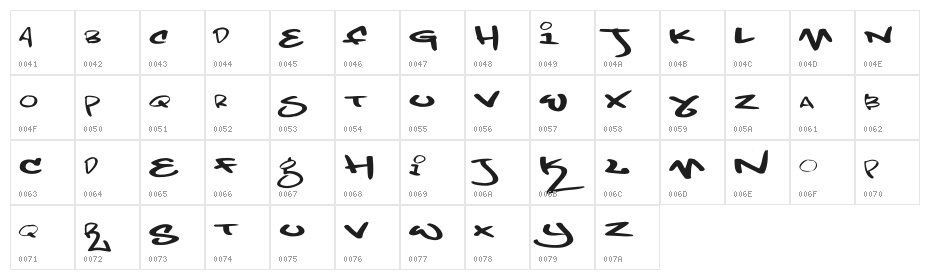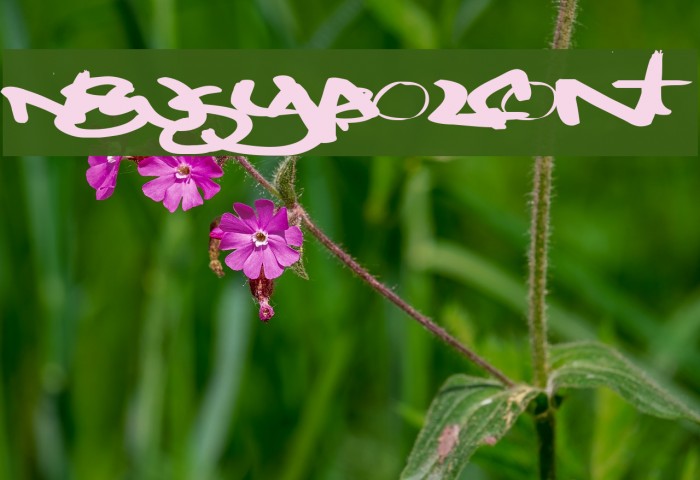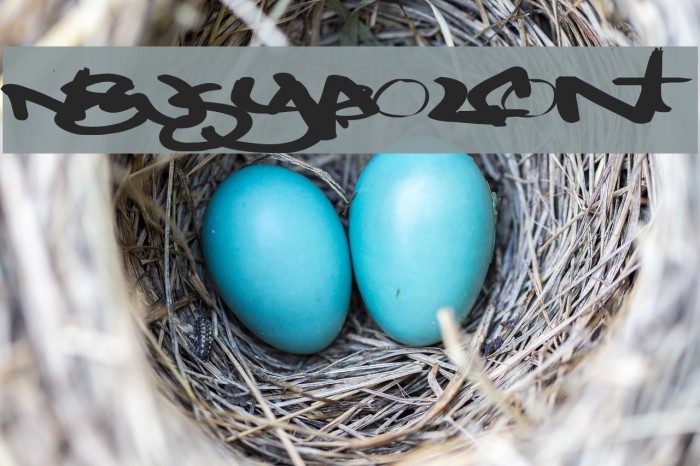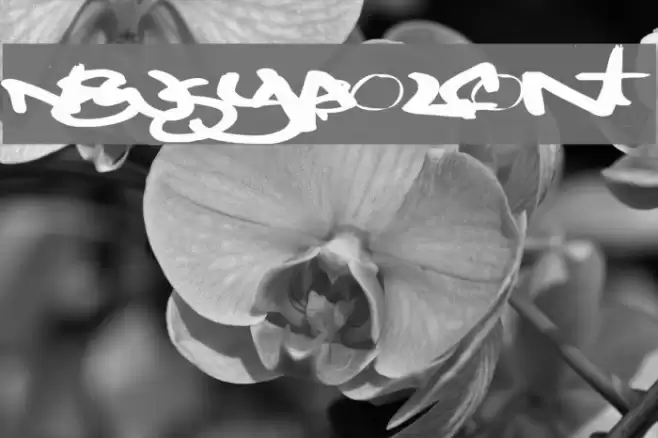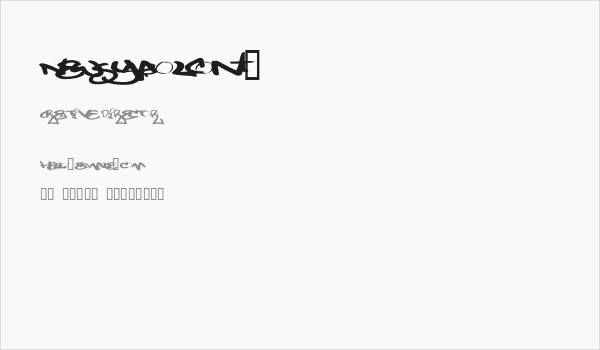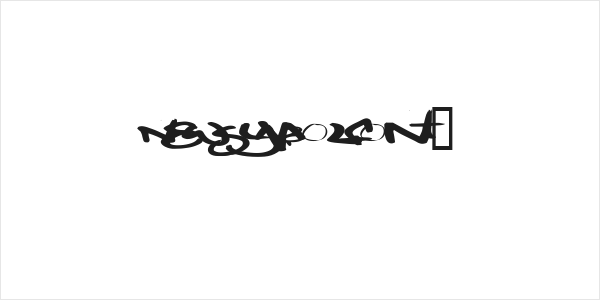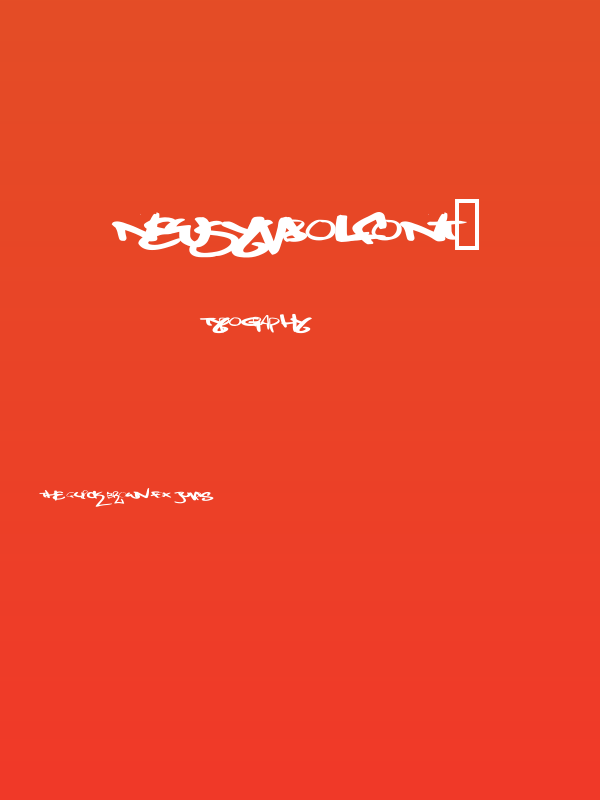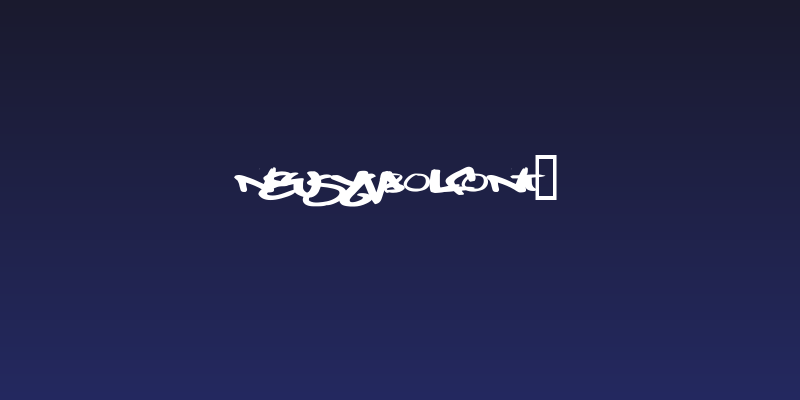
NewSymbolFont5 Font
NewSymbolFont5 Description
This font features a bold, expressive style reminiscent of urban graffiti. The letters are highly stylized with exaggerated curves and dynamic strokes, giving it a sense of movement and energy. The uppercase and lowercase letters maintain a consistent flow, while the numbers and special characters are crafted to match the overall aesthetic. The font's design is both artistic and edgy, making it suitable for projects that require a strong visual impact.
| Proposed Projects | Ideal for street art designs, urban-themed posters, music album covers, and edgy branding projects. |